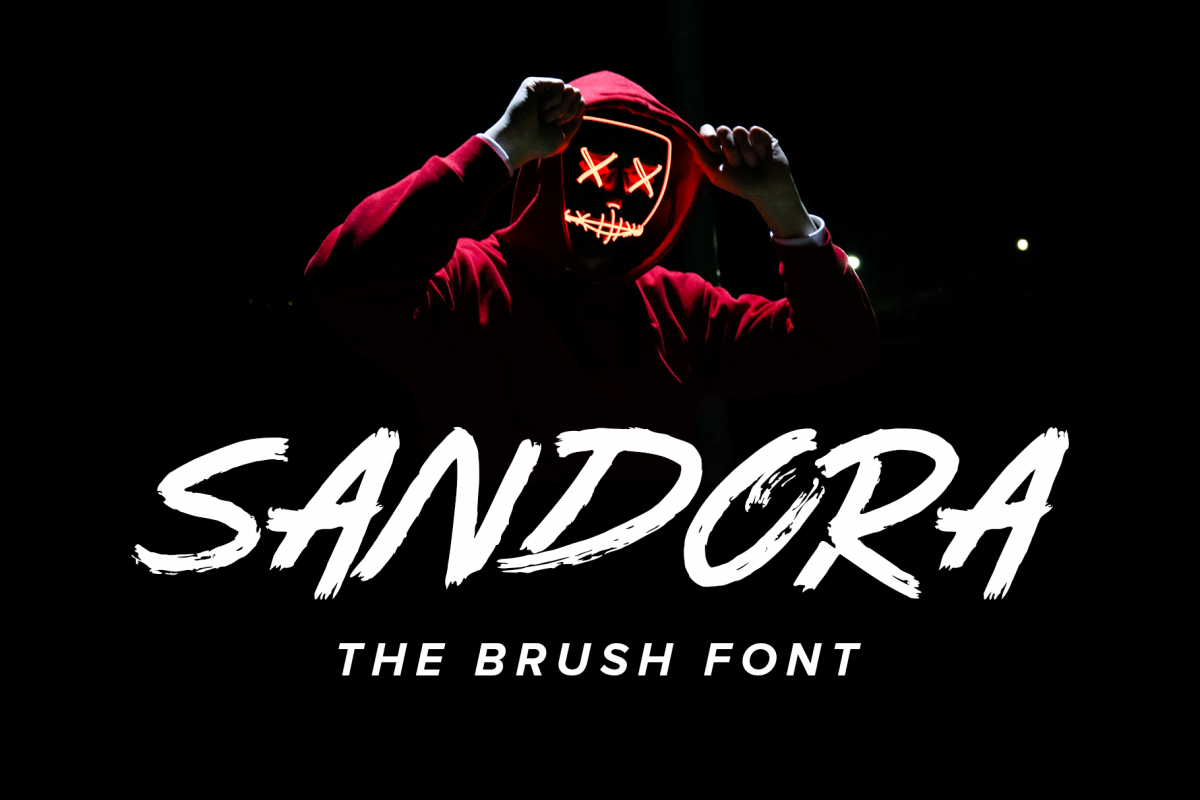
SANDORA BRUSH FONT
Sandora is a brush font that suitable for you to create design for t-shirt, book cover, social media banner and any advertisement content.